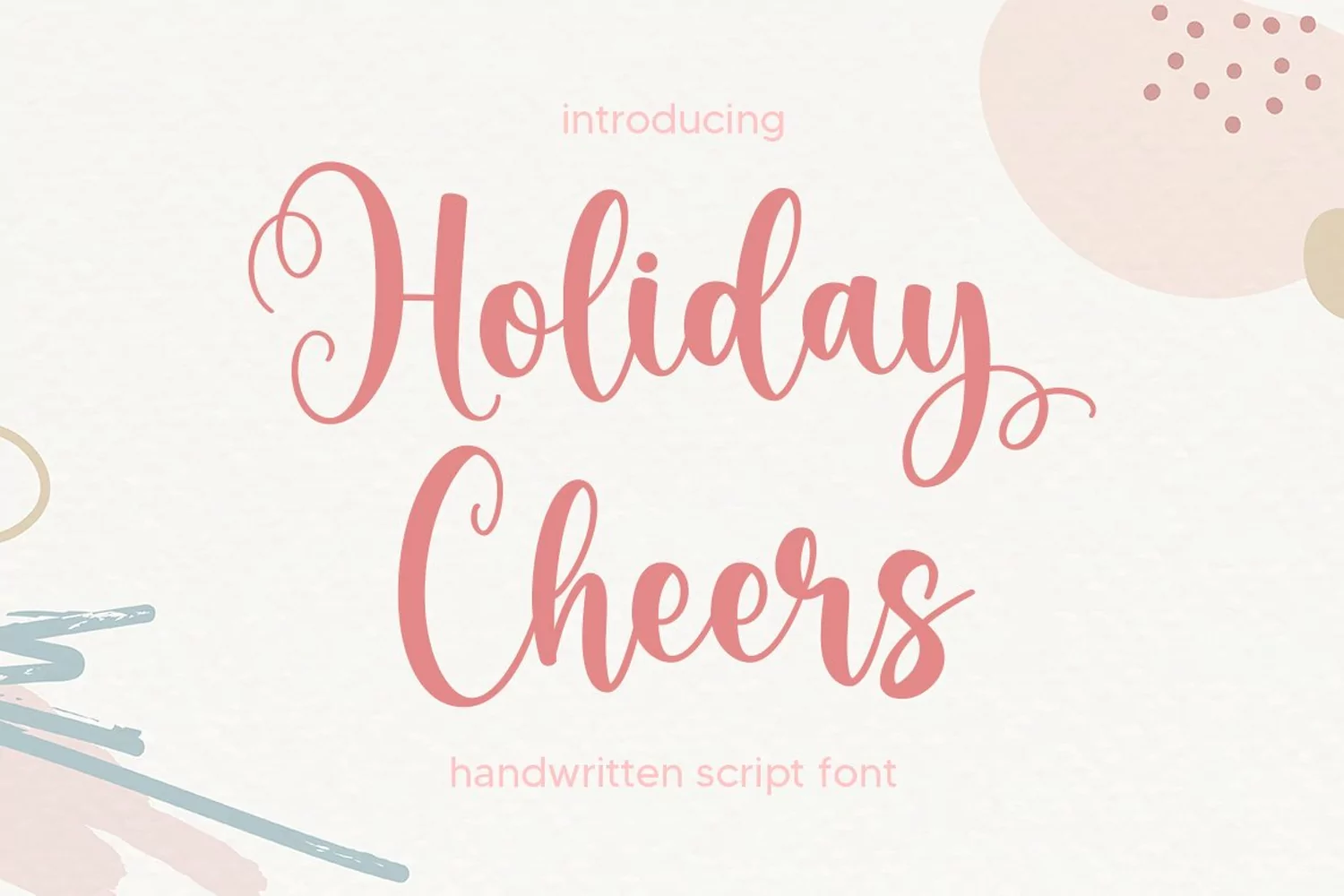
Holiday Cheers
Holiday Cheers is a delicate, elegant, and flowing handwritten font. It has beautiful and well-balanced characters and as a result, it matches a wide pool of designs. Add it to your most creative ideas, and notice how it makes them come alive!
By Graphix Line Studio